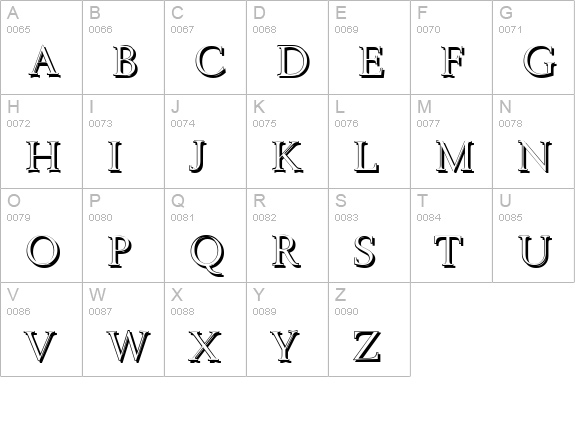
BelfastShadow-Light-Regular Font Details
BelfastShadow-Light-Regular is a refined, elegant variant in the BelfastShadow typeface family \xE2\x80\x94 well suited to elegant body text, refined sub-headings, and luxury branding.
BelfastShadow-Light-Regular is a versatile and elegant font that combines classic elements with a modern twist. This font features a unique shadow effect that adds depth and dimension to your text, making it perfect for various design projects. With its clean lines and subtle curves, BelfastShadow-Light-Regular exudes sophistication and style. The best part? This stunning font is available for free download at FontsMarket.com. Whether you're working on a branding project, designing a website, or creating eye-catching posters, BelfastShadow-Light-Regular is sure to make your text stand out. Don't miss out on the opportunity to enhance your designs with this exquisite font – download it today and elevate your creative projects to the next level.